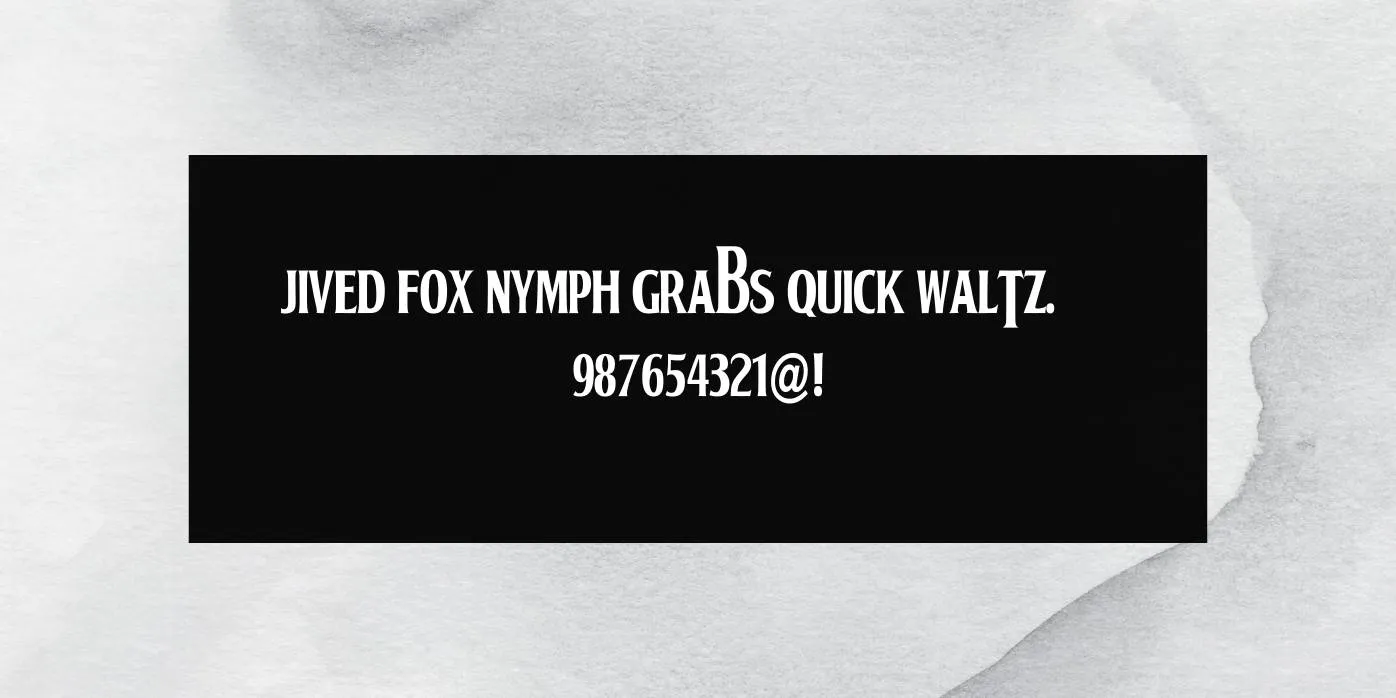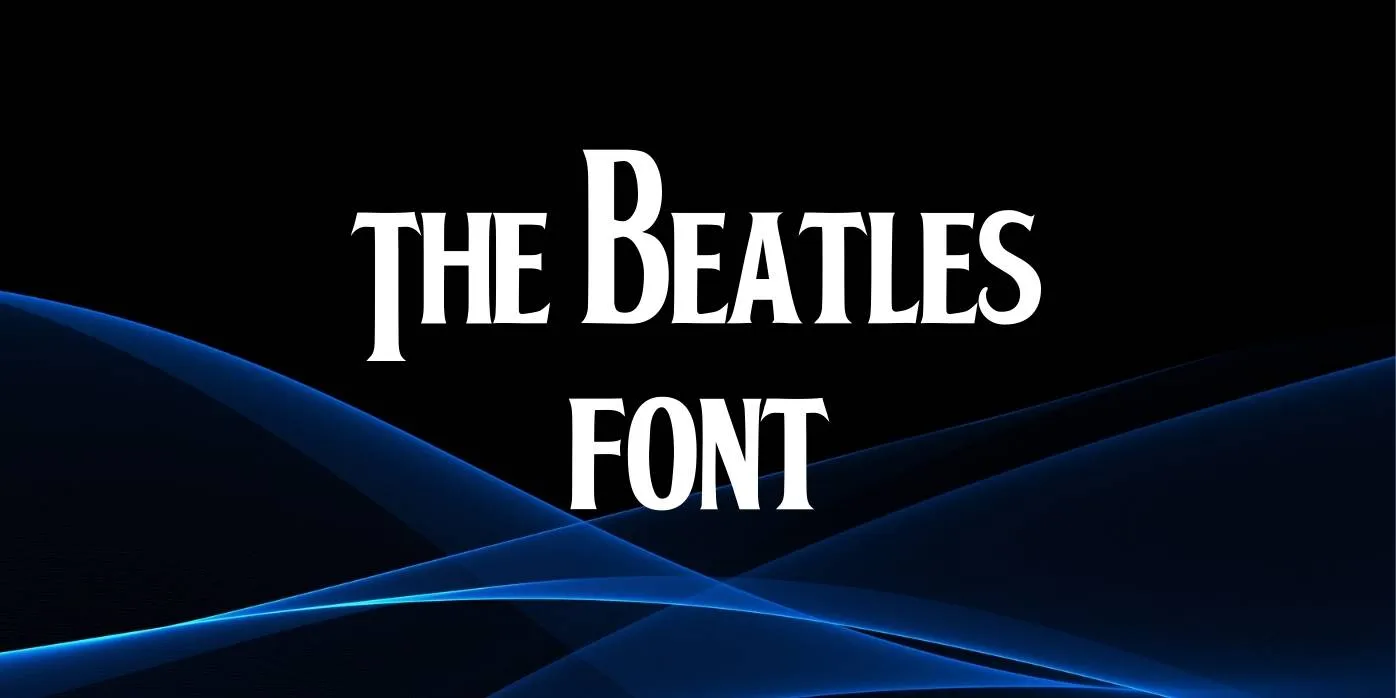
The Beatles Font
The Beatles Font is a typeface inspired by the lettering used on the album cover for the Beatles’ self-titled 1968 album, commonly known as “the White Album”. The font was created by British type designer Jonathan Barnbrook in 2007. This font contains the full set of Beatles-themed glyphs, including the iconic wavy lines that make up the “cloud” on the album cover. The font is available in both regular and bold weights.